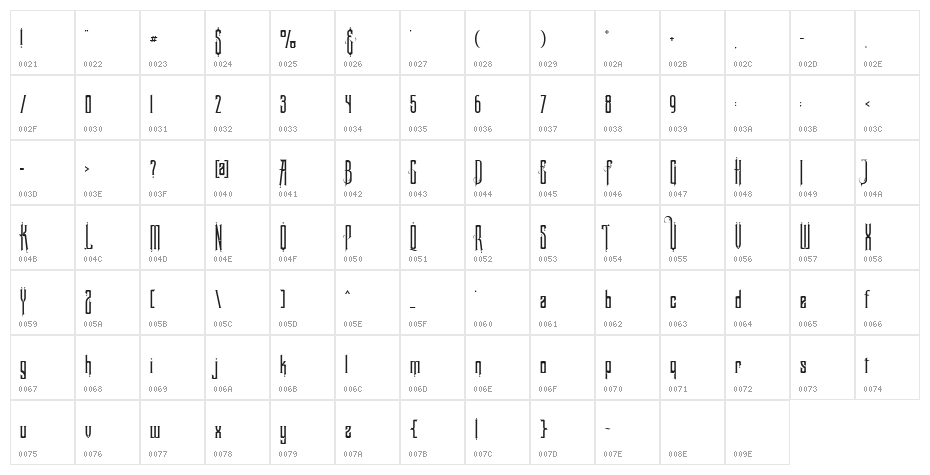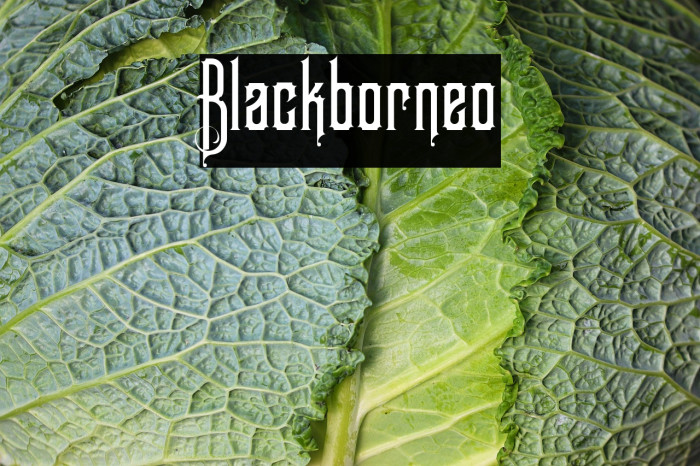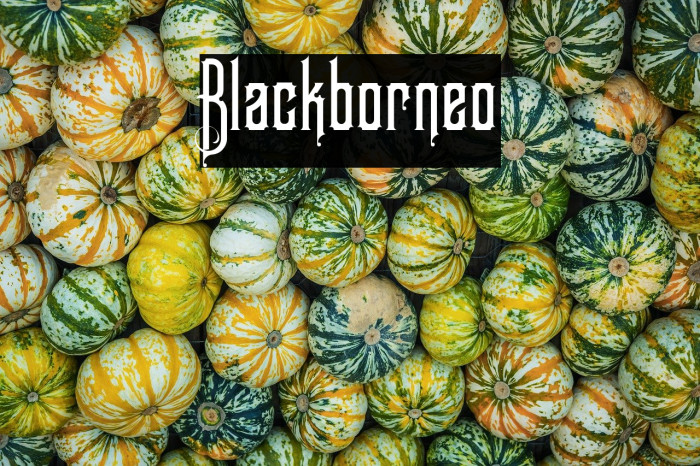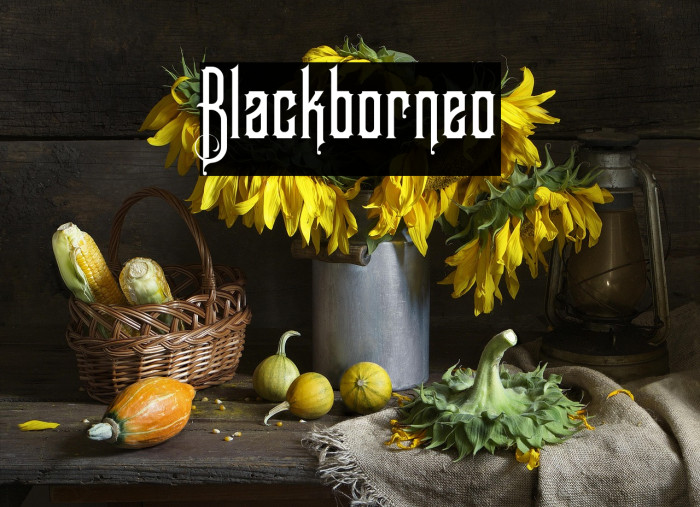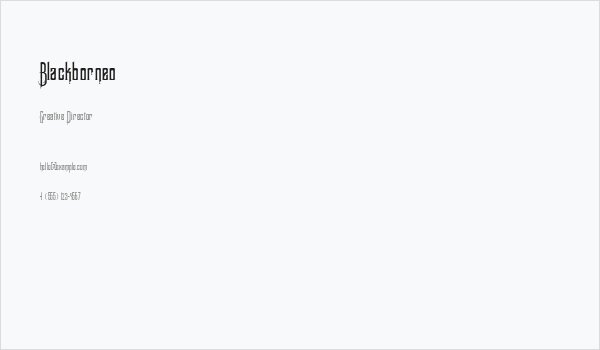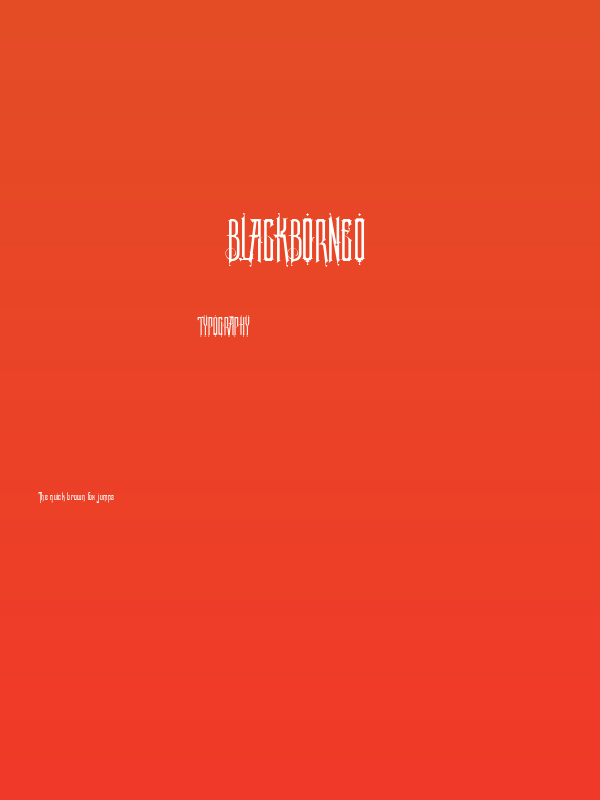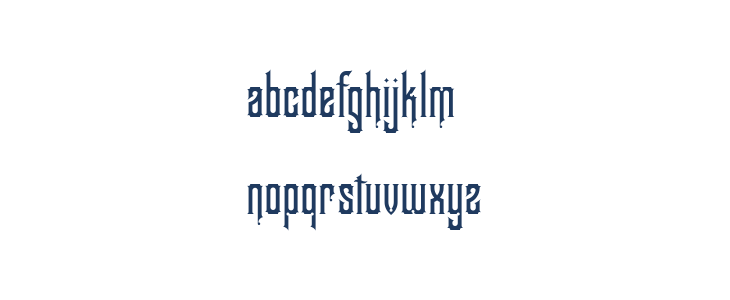
Blackborneo Font
Blackborneo Description
This font exhibits a striking and intricate design, characterized by its elongated and sharp serifs that evoke a sense of elegance and sophistication. The uppercase letters are particularly ornate, with flourishes and embellishments that add a decorative flair. The lowercase letters maintain a consistent style, offering a harmonious balance between readability and artistic expression. The numerals are distinct and align well with the overall aesthetic, while the special characters are crafted with the same attention to detail, enhancing the font's versatility. This font's unique style makes it ideal for projects that require a touch of drama and historical charm.
| Proposed Projects | Ideal for wedding invitations, historical themed posters, book covers, and branding that requires a vintage or gothic touch. |